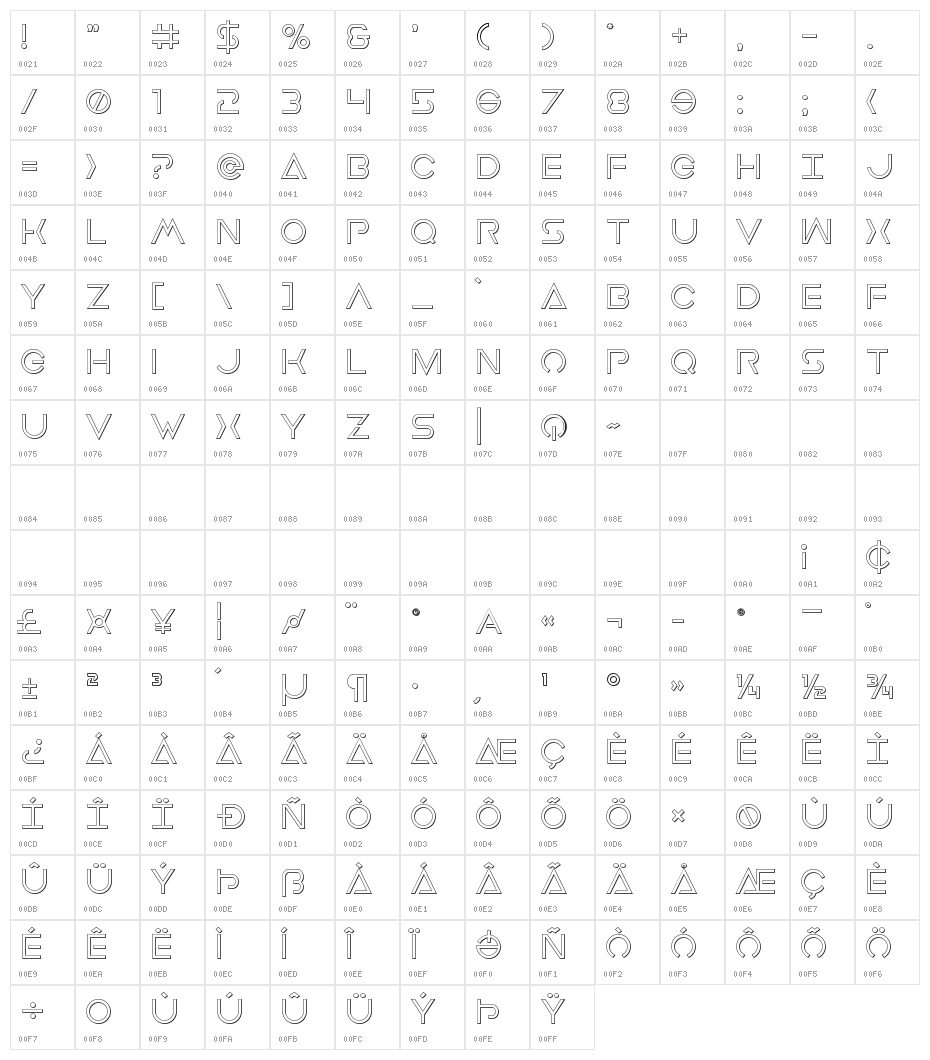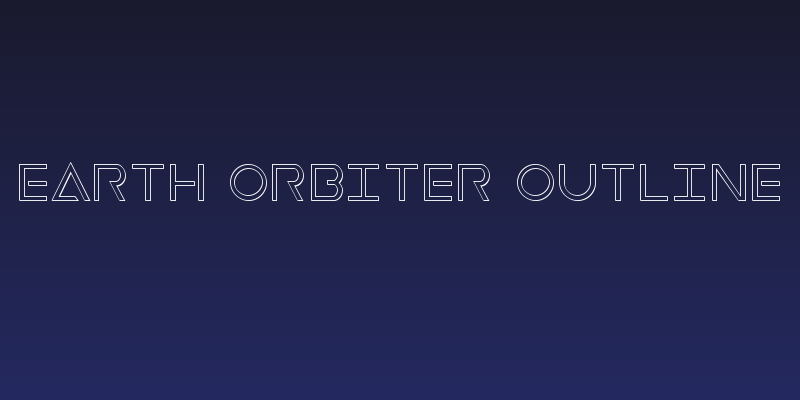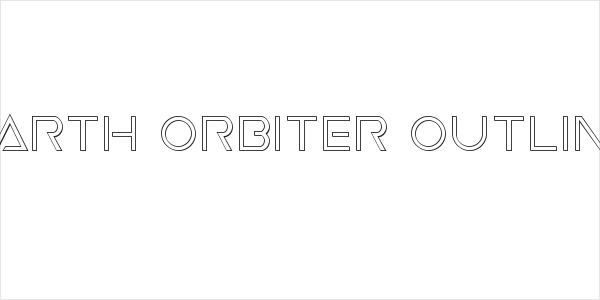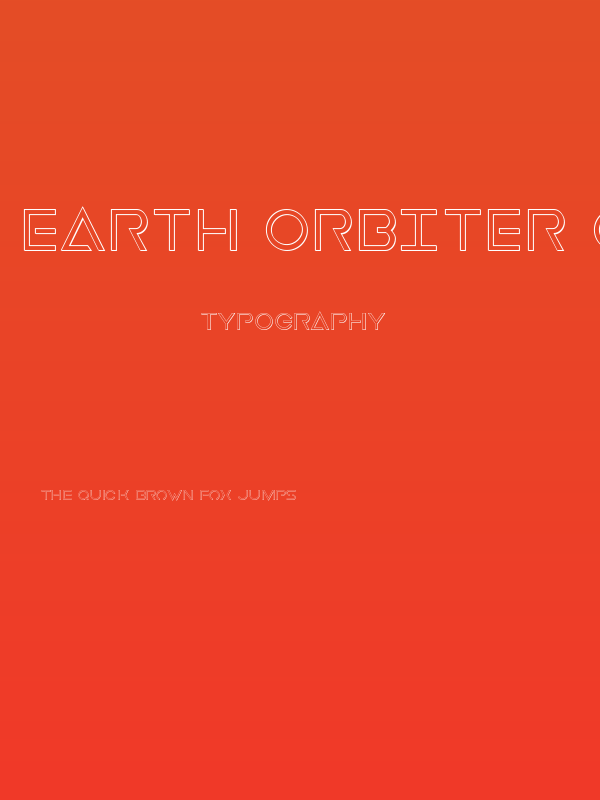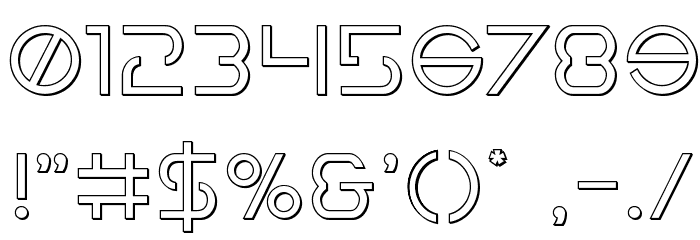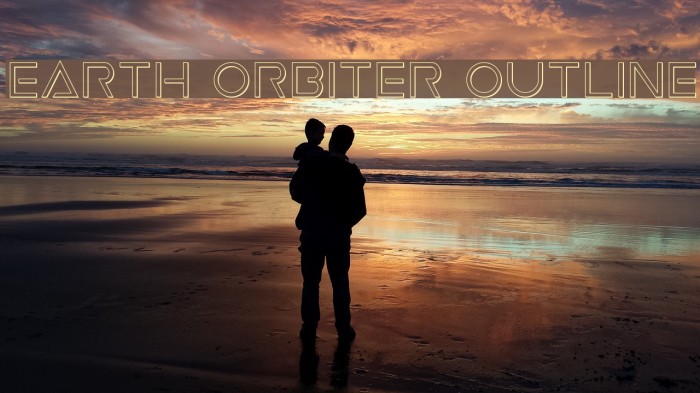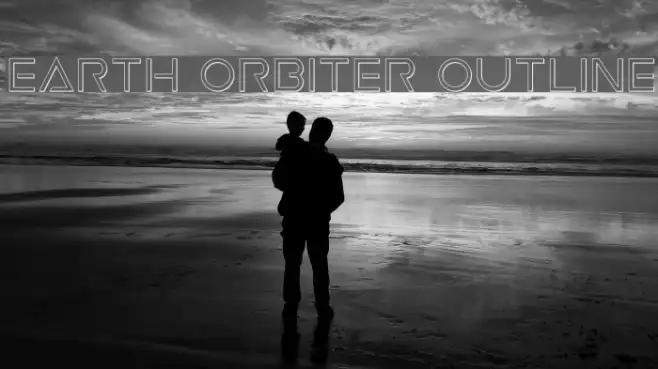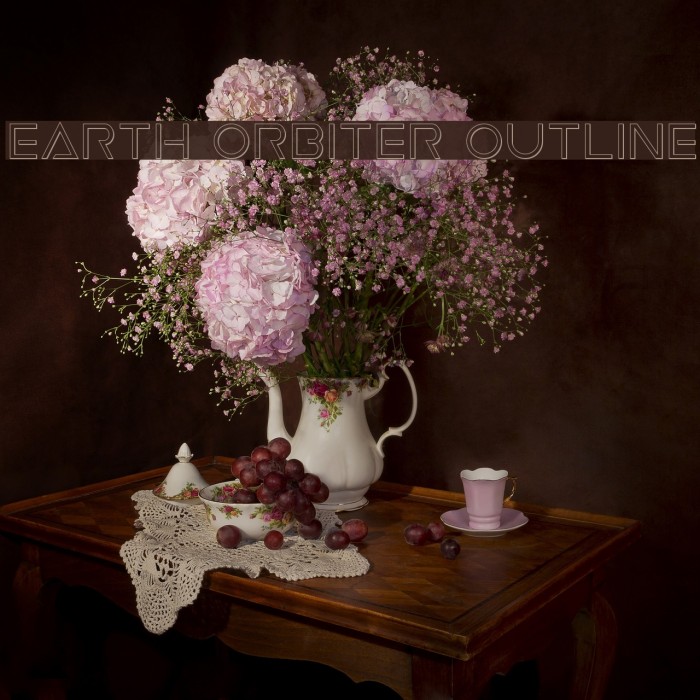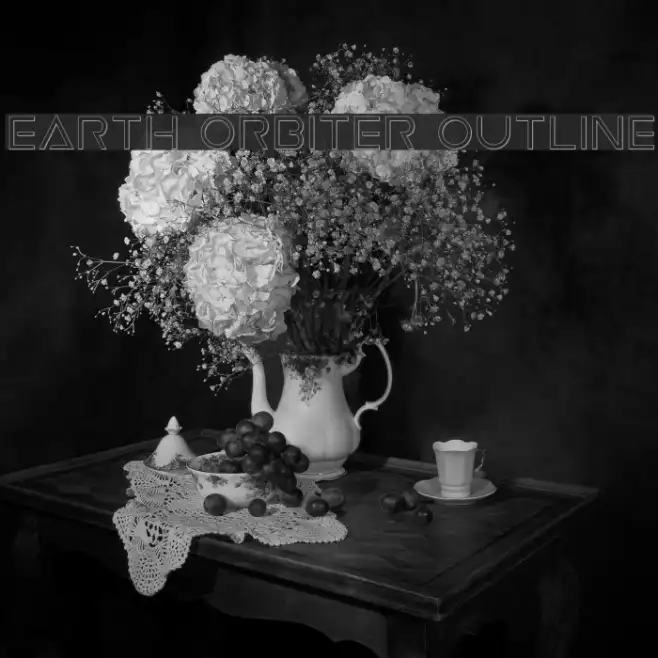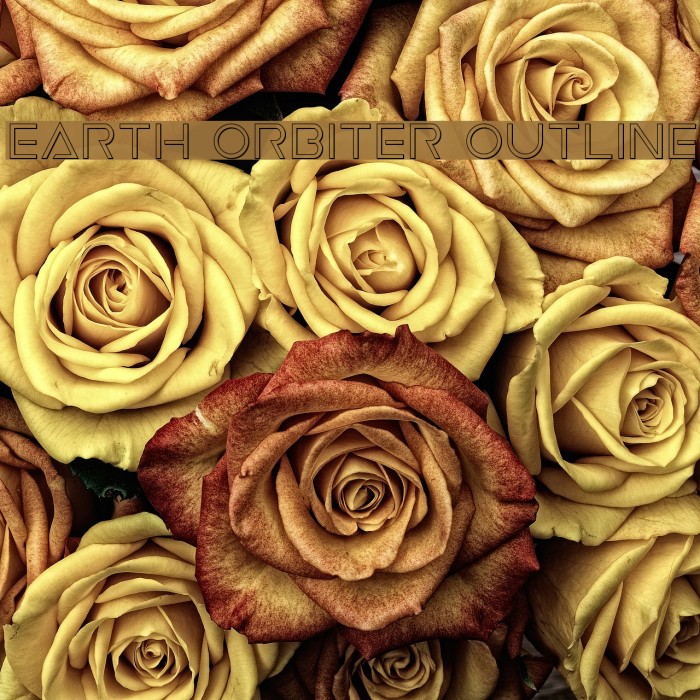
Earth Orbiter Outline Font
Earth Orbiter Outline Description
This font features a futuristic and geometric design, characterized by its distinct outline style. Each character is crafted with precision, showcasing a blend of straight lines and curves that create a sense of movement and modernity. The uppercase and lowercase letters maintain a consistent height, while the numbers and special characters are designed to complement the overall aesthetic. The font's unique outline gives it a lightweight appearance, making it suitable for projects that require a modern and tech-inspired look.
| Proposed Projects | Ideal for technology branding, sci-fi posters, modern art projects, and digital interfaces. |